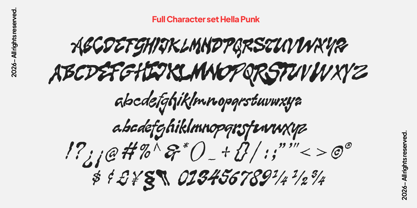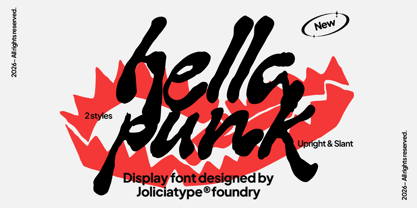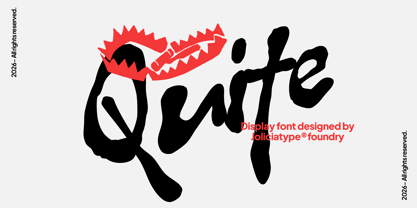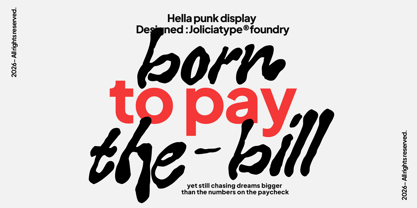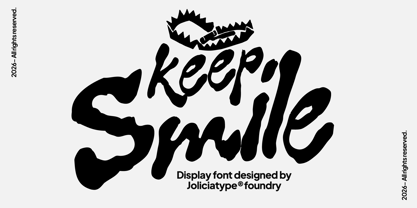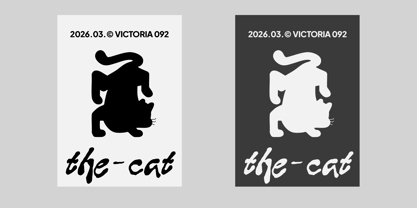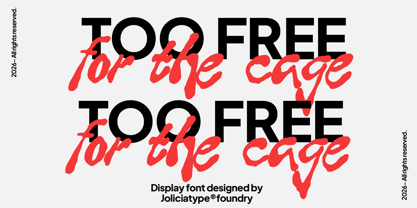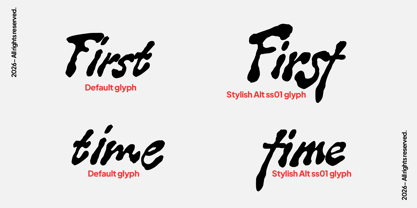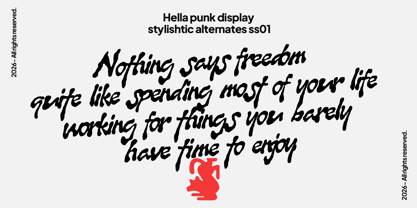
Hella Punk
La familia tipográfica Hella Punk fue diseñada por Laire Banyu y publicada por Jolicia Type. Hella Punk contiene 2 estilos y opciones de paquete familiar. Más información sobre esta familia
Hella Punk is a raw handmade display font inspired by the rebellious spirit of street culture, underground scenes, and punk aesthetics. Crafted with rough organic strokes and an intentionally imperfect style, this font captures the energy of hand-painted signs, graffiti tags, and DIY posters found in urban environments. Its bold and expressive letterforms create a strong visual impact, making it perfect for music artwork, streetwear branding, album covers, posters, packaging, and rebellious design projects. With its authentic handcrafted appearance and untamed personality, Hella Punk delivers a loud, fearless, and unapologetically street-inspired attitude to every design.